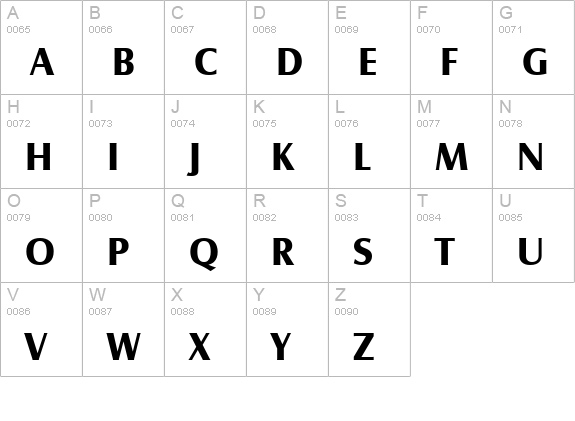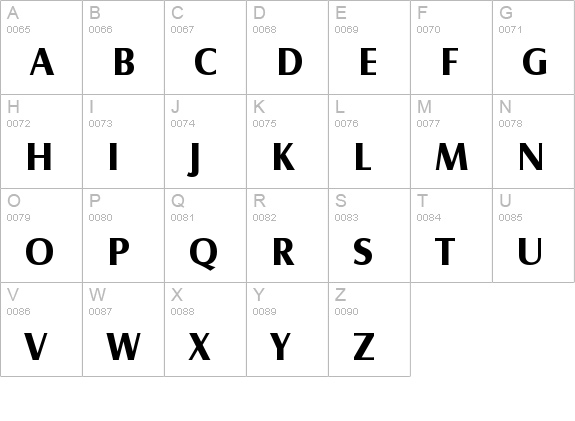
CastleT Bold Font Details
CastleT Bold is a strong, high-contrast variant in the CastleT typeface family \xE2\x80\x94 well suited to headlines, attention-grabbing titles, and strong calls-to-action.
CastleT Bold font is a stunning display typeface that exudes strength and elegance. With its bold and commanding presence, this font is perfect for making a bold statement in your design projects. Featuring clean lines and sharp edges, CastleT Bold font is sure to catch the eye and leave a lasting impression. What sets CastleT Bold font apart is that it is not only visually striking but also versatile, making it suitable for a wide range of design purposes. Whether you are working on a poster, logo, headline, or any other project that calls for a bold and impactful font, CastleT Bold font is sure to deliver. Best of all, CastleT Bold font is available for free download at FontsMarket.com. This means you can easily add this powerful font to your collection without breaking the bank. So why wait? Download CastleT Bold font today and take your designs to the next level!